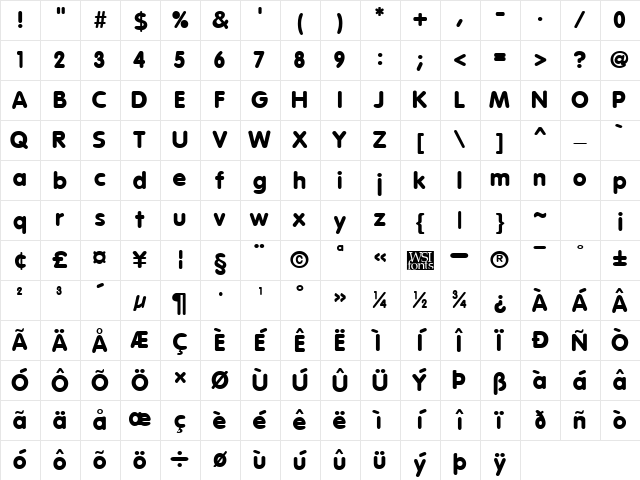
Vagabond Bold Free Font
Vagabond Bold
Complete Vagabond Bold glyph index. Displaying only characters natively supported by Vagabond Bold font.
Design Context for Vagabond
Vagabond is a composed and adaptable typeface that performs quietly and consistently across a wide range of design contexts. Its bold stroke weight gives it real presence on the page.